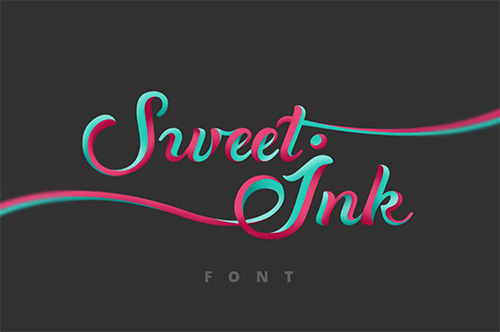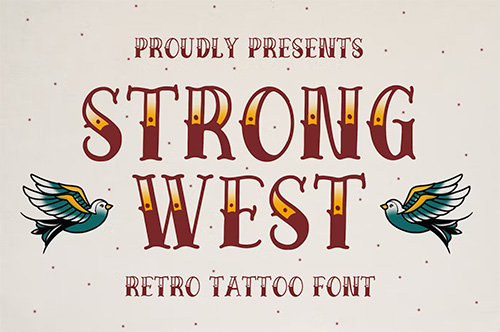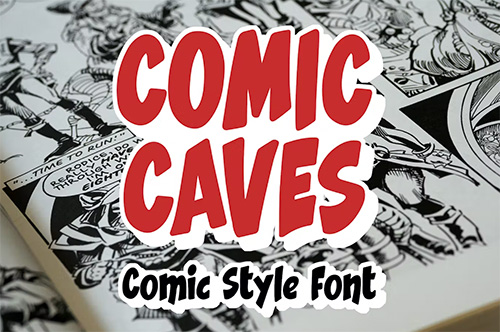
43 Best Procreate Fonts (Calligraphy, Tattoo, Comic, and More!)
Looking to download fonts for Procreate? In this article, we'll take a look at some awesome Procreate fonts from Envato Elements, as well as how to add fonts to Procreate if you've never done it before.
Now, let's check out some awesome Procreate fonts to download and try out today. We'll look at a bunch of different aesthetics and genres, let's go!
Calligraphy Fonts for Procreate
Looking for beautiful calligraphy fonts for Procreate? This list has plenty of sweeping, elegant fonts to check out. Perfect for invitations, announcements, posters, and more, calligraphy fonts can be a fun addition to your Procreate work.
1. Elizabeth Modern Calligraphy Font (OTF, TTF)
This elegant calligraphy font has beautiful, sweeping strokes. Try working with it in Procreate; mix it up with texture, color, and more.
2. Outeris Calligraphy Font (OTF, TTF, WOFF)
Here is a different aesthetic when it comes to calligraphy fonts for Procreate. It has a lot more quick, energetic movement to it.
3. Candelya Modern Calligraphy (OTF, TTF)
Looking for a romantic look and feel? Check out these modern calligraphy fonts for Procreate. Aren't those heart-shaped flourishes cute?
4. Dayland: Authentic Calligraphy (OTF, TTF)
This calligraphy font has an organic texture to its strokes. Try pairing this one with textured brushes in Procreate.
5. Safi: Unique Calligraphy (OTF, TTF)
The way the strokes are angled in this calligraphy font gives it a unique aesthetic. It also includes four different variations for you to try out if you're into funny calligraphy fonts.
6. Lovelygirly: Romantic Calligraphy (OTF, TTF, WOFF)
Calligraphy fonts can be such a romantic choice. Try a cute calligraphy font like this one for headlines, titles, invitations, greeting card designs, and more.
7. Juliet Modern (Calligraphy Fonts Procreate) (OTF, TTF)
This modern calligraphy font is PUA encoded, has extended Latin characters, and is an elegant choice for so many design and art projects. It's one of the top fonts for Procreate available here.
8. Everline Modern Calligraphy (OTF, TTF)
Check out this beautiful, modern, and cute calligraphy font. The script here has visually interesting cutouts, which could be an eye-catching addition to your compositions.
Handwriting Procreate Text Fonts
But maybe you're looking for the best Procreate fonts for other purposes, like a Procreate handwriting font. This can be a great choice if you're looking to add lettering to your comics or a hand-drawn feel to the text in your artwork. Check out these designs.
9. Pen Story: Casual Handwriting (OTF, TTF)
If you like an informal, handwriting feel, then a handwriting font like this one could be a perfect choice. Use it for many different types of lettering and try this Procreate font to download today!
10. Summer Handwriting Font (OTF, TTF, WOFF)
If you're looking to use comic fonts for Procreate, it can be a great choice for both drawing and experimenting with type. Check out a Procreate handwriting font like this one.
11. Ainin's Handwrite Font: Playful Fun Typeface (OTF, TTF)
Fan of bubbly handwriting? This handwriting font is another great choice for an informal look and feel. Try pairing it with illustrations, textures, and even photographs.
12. Nightjump Handwriting Font (OTF, TTF)
Here's a different take on a hand-drawn look and feel. The height gives this font a whimsical and memorable aesthetic.
13. Dawnie: The Beauty Handwriting Font (OTF, TTF, WOFF)
Isn't this handwriting font pretty? This one is likely best for display purposes. Use it to write out names, titles, key words, and more.
14. Imani Serif Cute Handwriting Font (OTF, TTF)
This handwriting font uses serifs, like we might see in other fonts. It has a bookish aesthetic, while still capturing an informal, hand-drawn vibe.
15. Milson: The Handwriting Sans Font (OTF, TTF, WOFF)
Looking for a uniform handwriting font? This one could be the perfect choice. It also includes an italic version for you to use and experiment with.
16. Flowerista: Girly Handwriting Floral Style (OTF, TTF, WOFF)
This bubbly handwriting font has a lot of personality. The varying baseline gives it a playful character. Try this one out in your next design, illustration, or children's book.
17. Lupines: Cute Skinny Handwriting Font (OTF, TTF)
This handwriting font has a lot of organic variety. This font download also includes some illustration bonuses, like florals, for you to try in your next Procreate project.